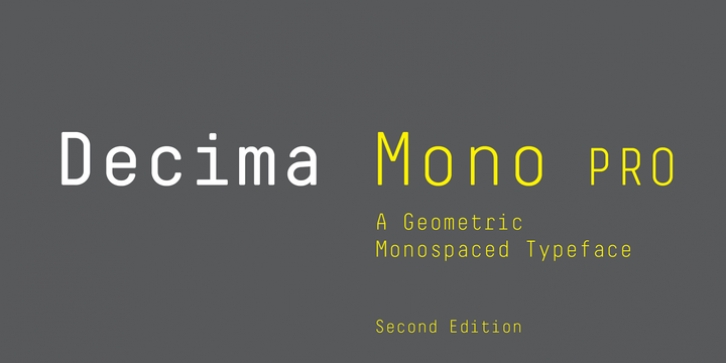
Decima Mono Pro was designed by Ramiz Guseynov and published by TipografiaRamis. Decima Mono Pro contains 6 styles and family package options.
Decima Mono Pro is an upgrade of the well received Decima Mono typeface, released back in 2009 and quite successful ever since. This is a modern monospaced condensed sans serif family with classic geometric design, built in three weights and six styles. The letterforms in roman style are techno (engineered) in appearance, while italics remind one of elegant handwriting balanced with Roman geometry.\